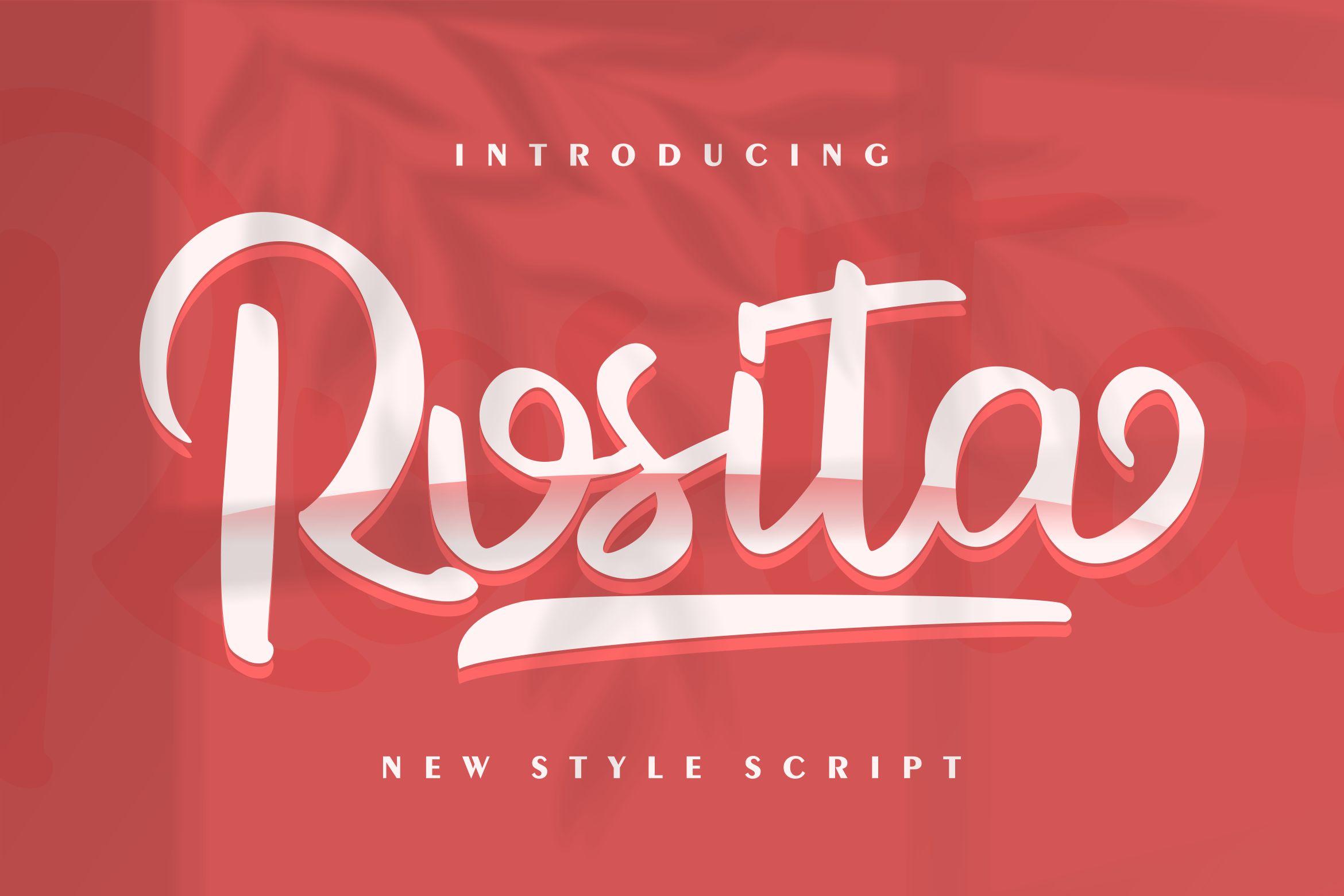
Rosita Font Description
Rosita is a fresh, unique script with a carefree attitude and a playful edge. Perfect for adding a quirky but casual feel, it comes with a large selection of natural-looking ligatures. This font is perfect for logos, invitations, wedding designs, social media posts and much more!